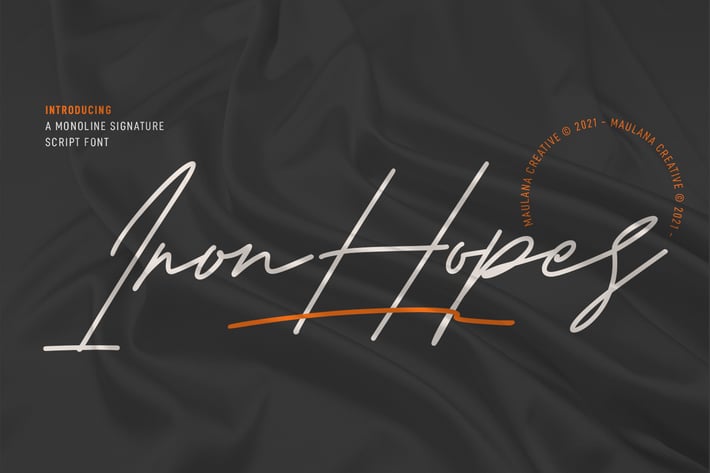
Ironhopes Monoline Signature Script Font
Ironhopes is a casual classic signature script font. With light mono-line stroke, fun character with some of ligatures and extra swash. To give you an extra creative work. Ironhopes font support multilingual more than 100+ language. This font is good for logo design, Social media, Movie Titles, Books Titles, a short text even a long text letter and good for your secondary text font with sans or serif. Make a stunning work with Ironhopes font.